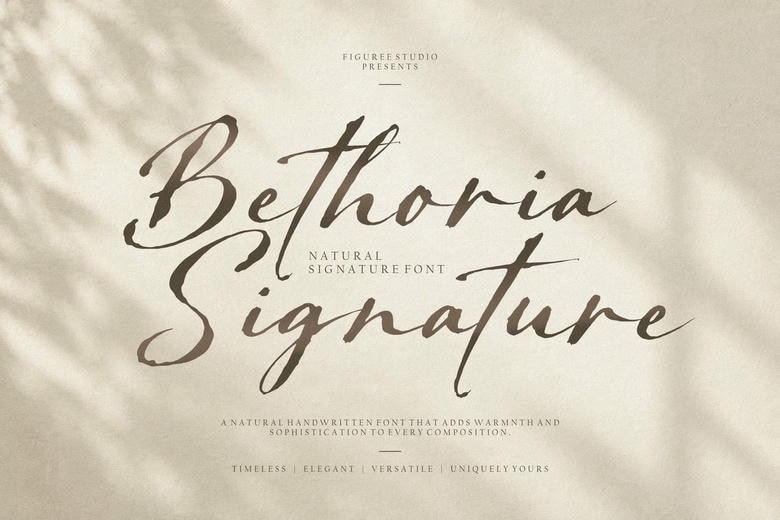
Bethoria Signature Font
Bethoria Signature is a handwritten font designed for projects that call for a natural, personal signature style. Its smooth, handwritten letters add a human touch, making your typography feel warm and inviting instead of formal or mechanical.
This font is great for wedding invitations, greeting cards, personal logos, photography titles, quotes, stationery, packaging, product labels, social media posts, headlines, and event materials.
Bethoria Signature offers uppercase and lowercase letters, numbers, punctuation, symbols, multilingual support, and ligatures. You can create different styles by mixing uppercase and lowercase letters, and the ligatures make certain letter pairs flow more like real handwriting.
Bethoria Signature works well for names on invitations, short quotes on cards, signatures on photos, headings in print, or decorative text on packaging. For contrast, try pairing it with a simple serif or sans serif font for clear supporting text.
Bethoria Signature Handwritten Font